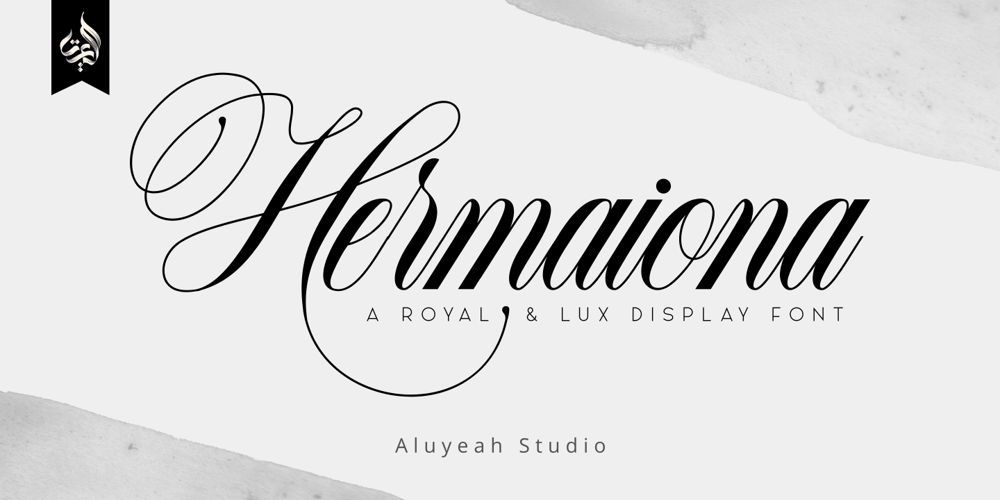
AL Hermaiona Font Family was designed by Linggar Sundoro and published by Aluyeah Studio. AL Hermaiona contains 1 styles and family package options. Bonjour! Hermaiona a royal and lux display font. This font was carefully crafted and inspired by luxury fashion in the world. It creates a luxurious, rich, exclusive and elegant look in design.Coming to you with 100+ rich and luxury alternate to create a perfectly beautiful, classy, rich, elegant, and luxurious design. Use this font for your luxury brand, fashion brand, resort, cosmetics, invitations, wedding, branding, packaging, magazines, boutique, social media, restaurant, spa, greeting cards, headers, headline and many more.Features:OpenType supportMultilingual support (15 languages)PUA EncodedSuper Easy to Use alternates – It’s OpenType support but you can easily call alternates character using special combination like A.2 B.2 a.2 a.5 b.3 etc so you dont need special softwareYou will receive:Al_Hermaiona.otfAl_Hermaiona.ttfThanks for checking out my font. I really hope you enjoy using it!If you have any questions I’d be more than happy to answer them, just send me a message! linggarsundoro@gmail.com Stay Healthy & Stay Strong